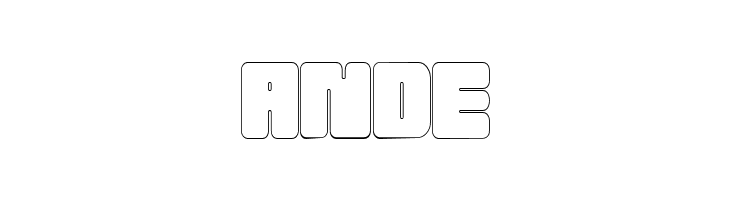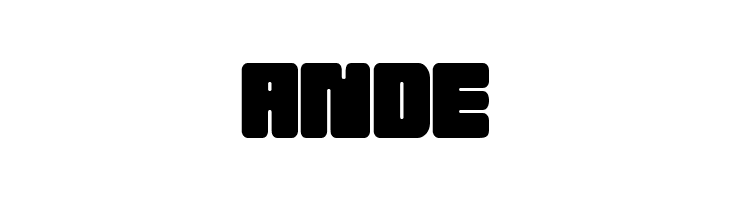
Joygist [Demo] Regular Font
Bold, rounded, blocky sans-serif font with uniform strokes.
Joygist [Demo] Outline Font
Bold, rounded block outline font with geometric shapes.